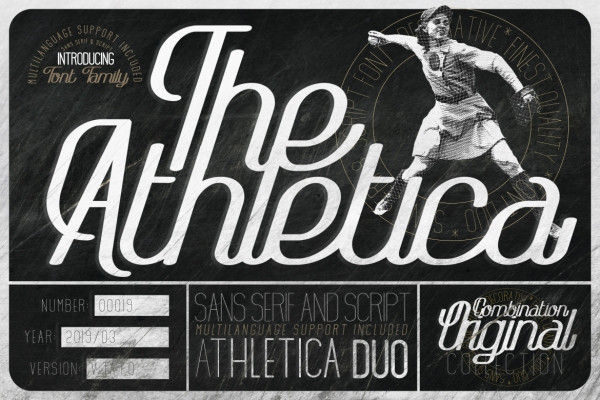
The Athletica Font is an handcrafted vintage monoline script and sans-serif. Inspired by retro posters and magazines, postcards and ads in 40’s and 50’s.
Font comes with 26 styles. From Regular to Black, Letterpress variation and many others.